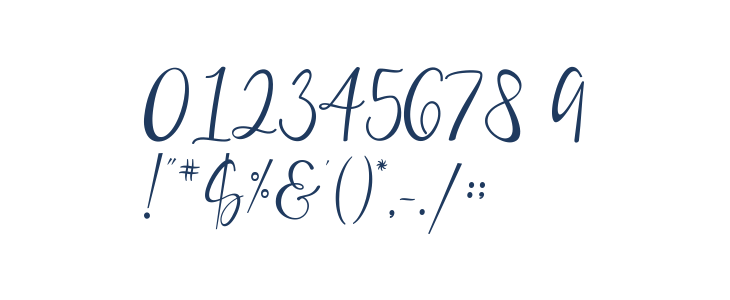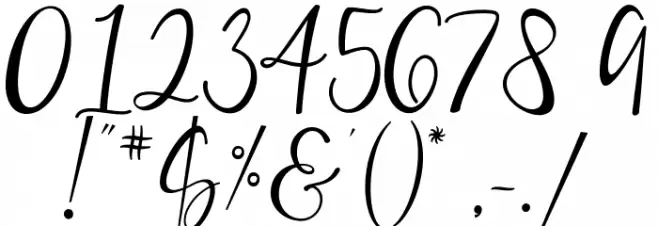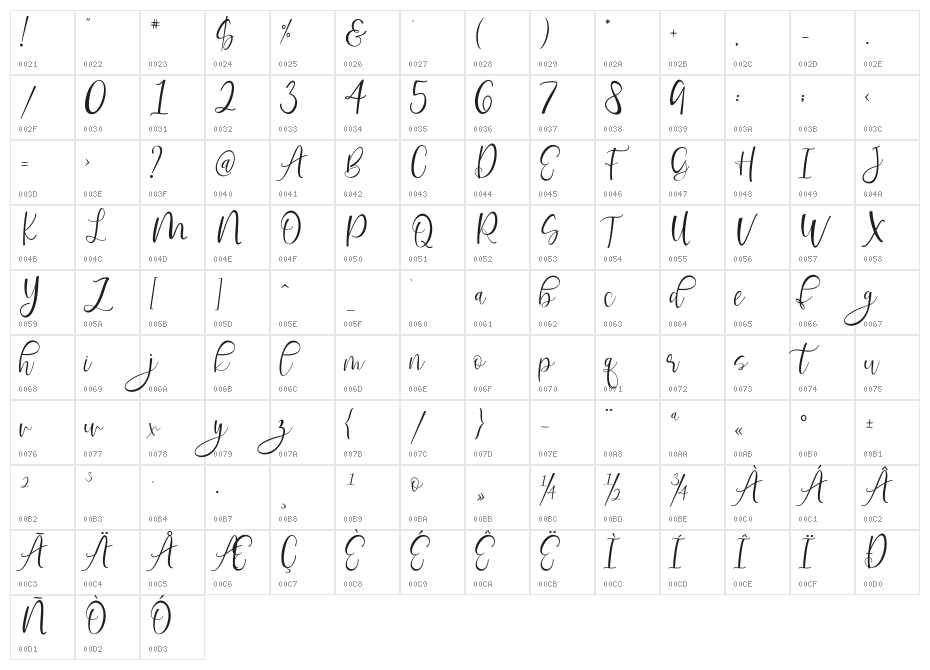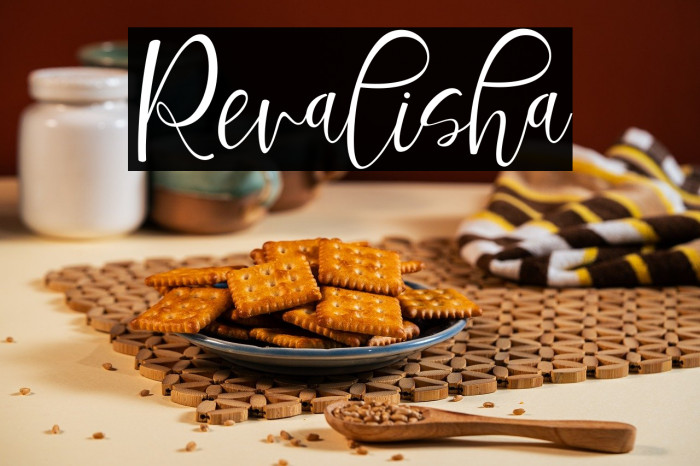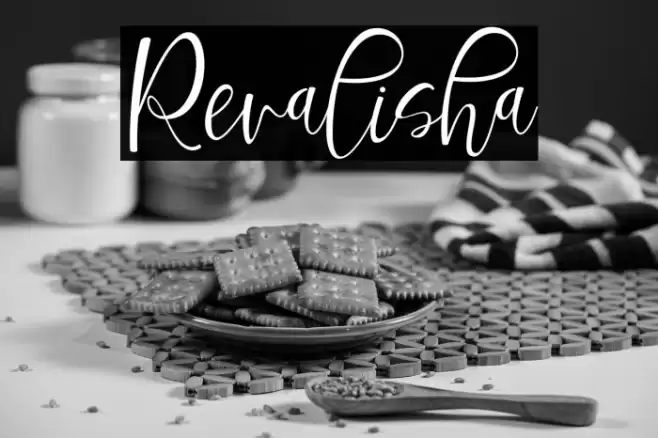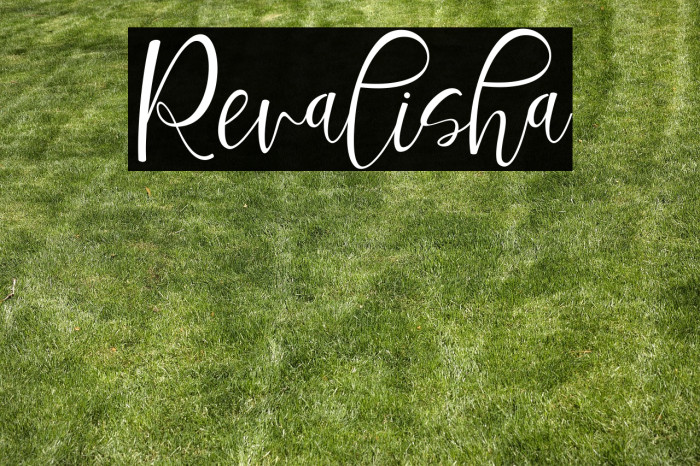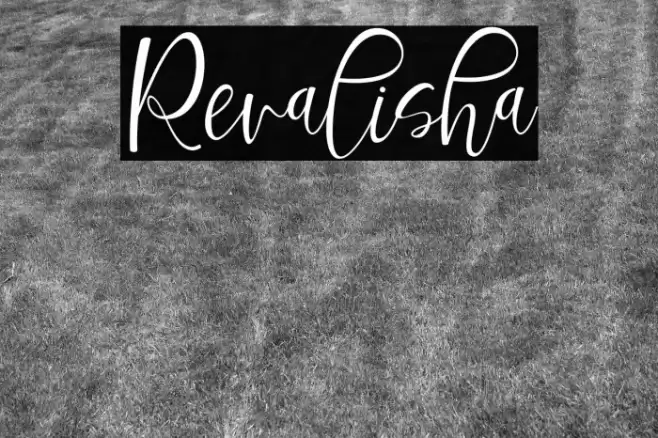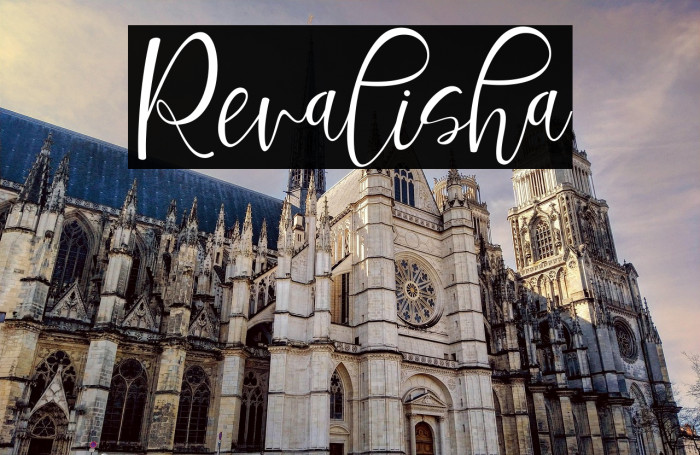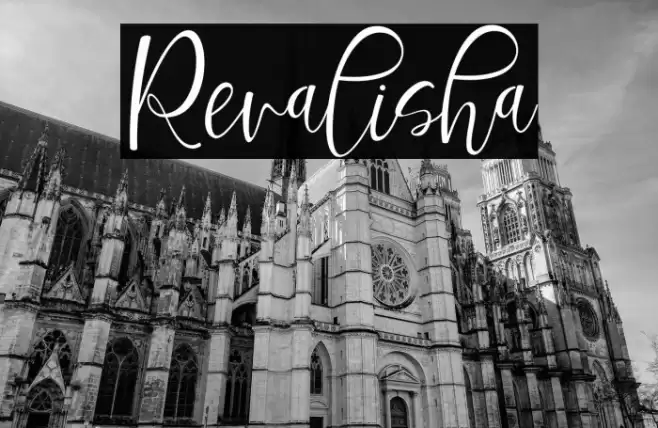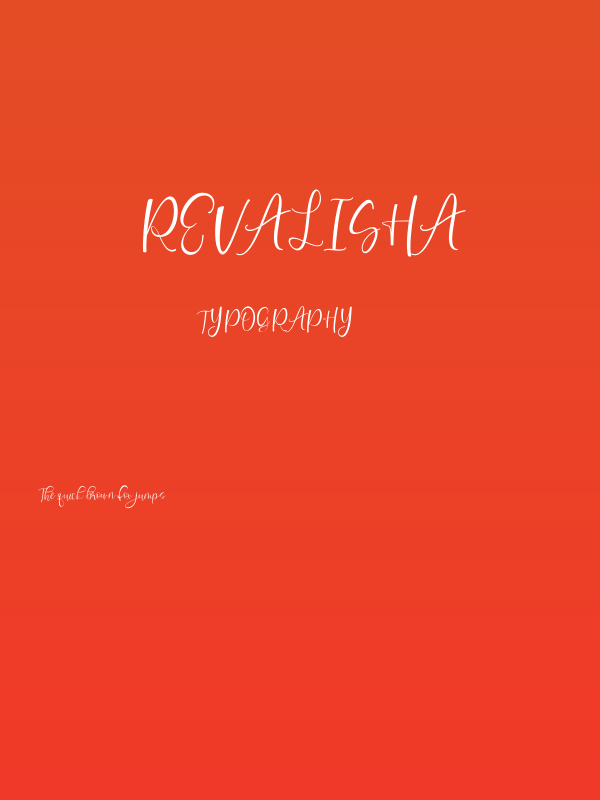
Revalisha Font
Revalisha Description
This elegant script font features a flowing, cursive style with intricate loops and swashes, creating a sense of sophistication and grace. The uppercase letters are tall and slender, with decorative flourishes that enhance their visual appeal. The lowercase letters maintain a consistent flow, connecting smoothly to form a cohesive and harmonious look. The numerals are designed with a similar flair, ensuring they blend seamlessly with the alphabetic characters. Special characters are thoughtfully crafted, adding versatility to the font's usage. The overall design exudes a sense of elegance and is perfect for projects that require a touch of class and refinement.
| Proposed Projects | Wedding invitations, luxury branding, greeting cards, elegant packaging, and personal stationery. |